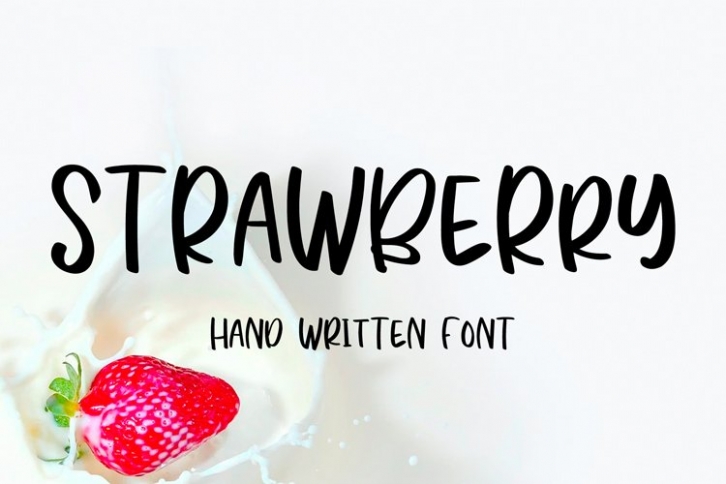
Strawberry is a gorgeous font that was realeased on June 14, 2022. The font can be used in many style contexts and design environments. Perfect for invitations, magazines, websites, logos, and more! It was designed by Fontysia and the file size is 8.34 MB. Thanks for checking out this font!